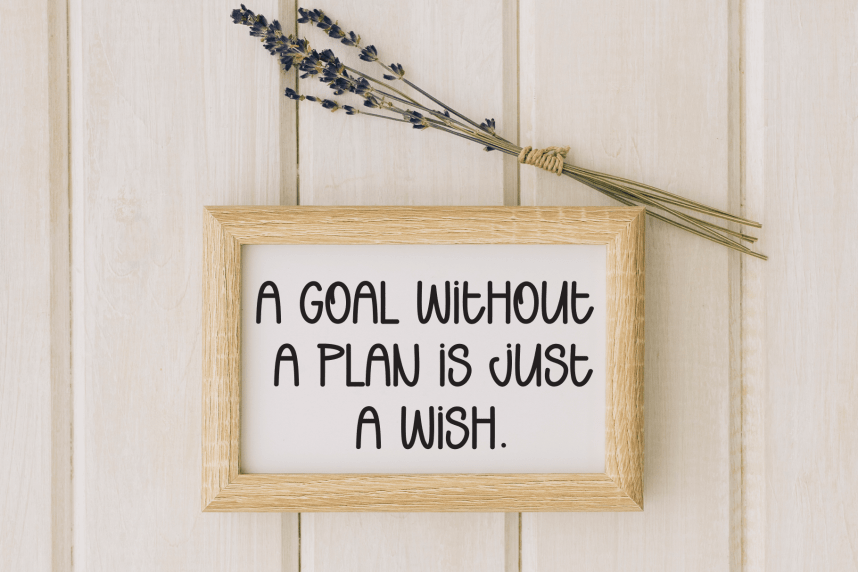
Jumping Rainbow Handmade Font
Jumping Rainbow Handmade Font is a sweet and friendly handwritten display font. Cute and fun, this font is ideal for writing wedding invitations, cards, or any other design that might need a playful touch!